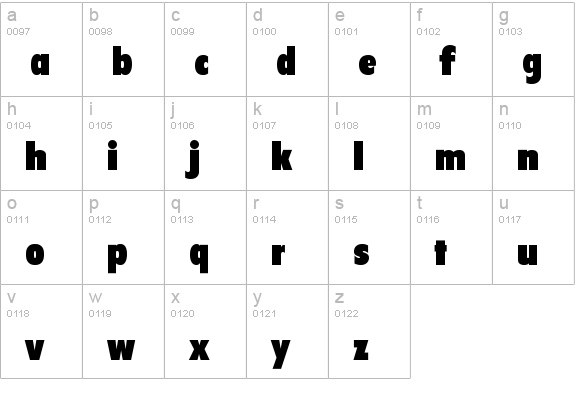
Florida-Black is a maximum-weight, dramatic variant in the Florida typeface family \xE2\x80\x94 well suited to maximum-impact headlines, posters, and packaging.
Florida-Black font is a stylish and modern typeface that exudes elegance and sophistication. With its sleek lines and bold presence, this font is perfect for creating eye-catching designs that demand attention. The versatile nature of Florida-Black font makes it suitable for a wide range of design projects, from branding to editorial design. The best part? Florida-Black font is available for free download at FontsMarket.com. Now you can add a touch of class to your projects without breaking the bank. Don't miss out on this opportunity to elevate your designs with the stunning Florida-Black font. Download it today and let your creativity shine!